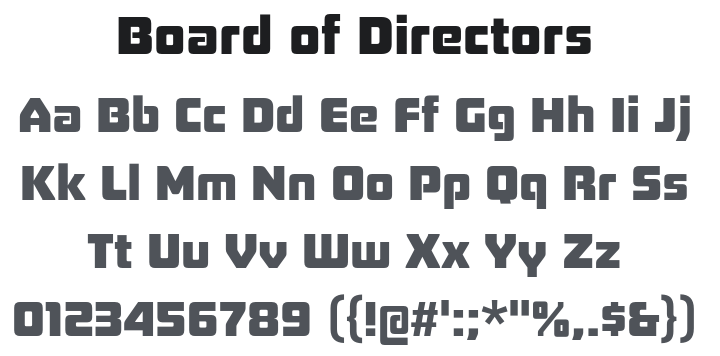
Board of Directors Font Family
About Board of Directors
Board of Directors takes its character from the sharp geometry of 1970s hi-tech logos and the clean efficiency of early dot-matrix and plotter type. Built around a large x-height and precisely curved strokes, it holds clarity even at smaller sizes — remarkable for a display face with such a square, industrial structure.